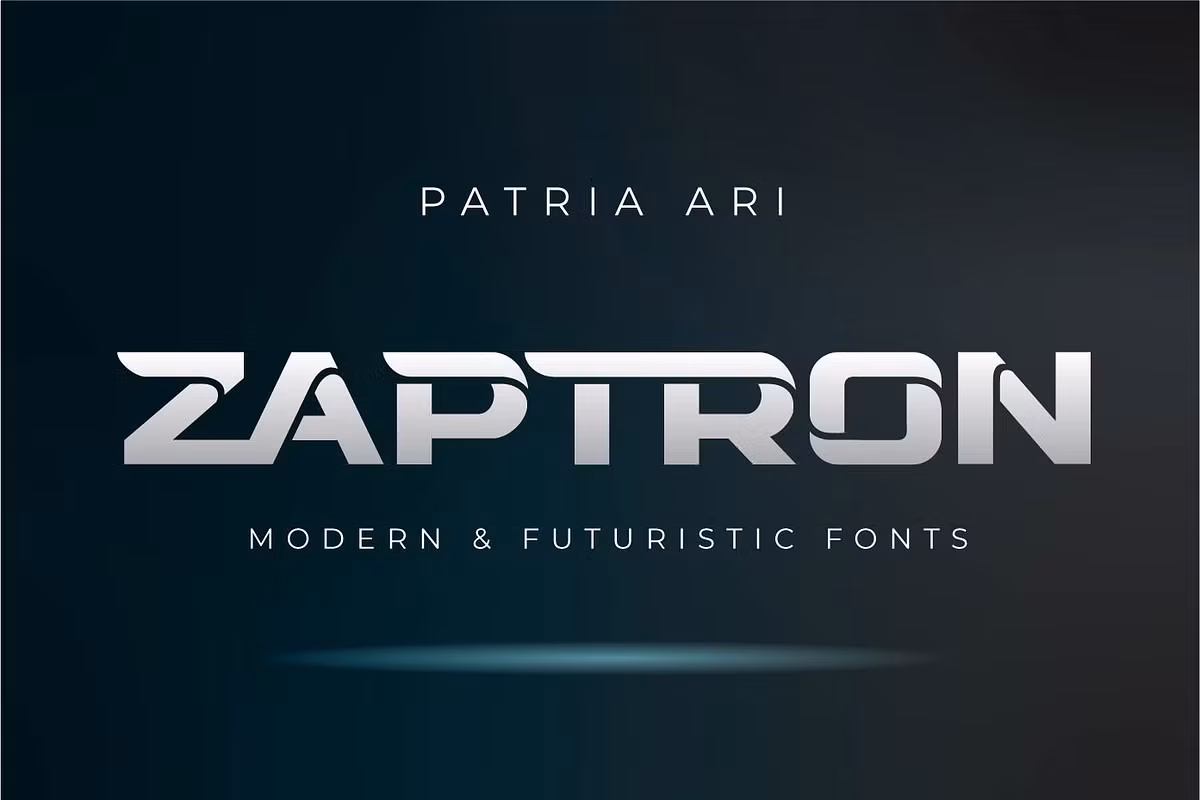
Zaptron - Modern Fonts Free Download is a sleek and futuristic typeface crafted for cutting-edge designs. With its clean lines, sharp angles, and tech-inspired vibe, Zaptron is perfect for modern branding, app interfaces, digital artwork, sci-fi posters, and any project that demands a bold, contemporary look.
Zaptron - Modern Fonts Free Download stands out with its minimal yet impactful style, making it a go-to choice for designers aiming for innovation and clarity. Whether you're working on startup branding, digital campaigns, or tech event materials, Zaptron delivers a high-tech aesthetic with professional finesse. Download it now and experience the future of typography in your next project.